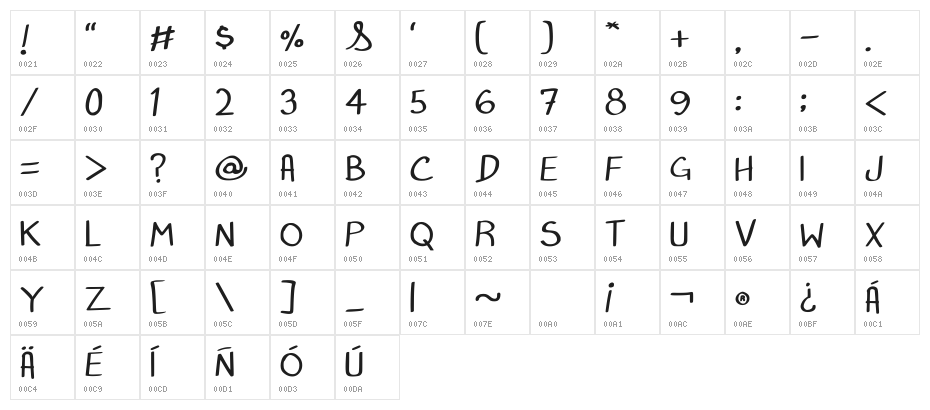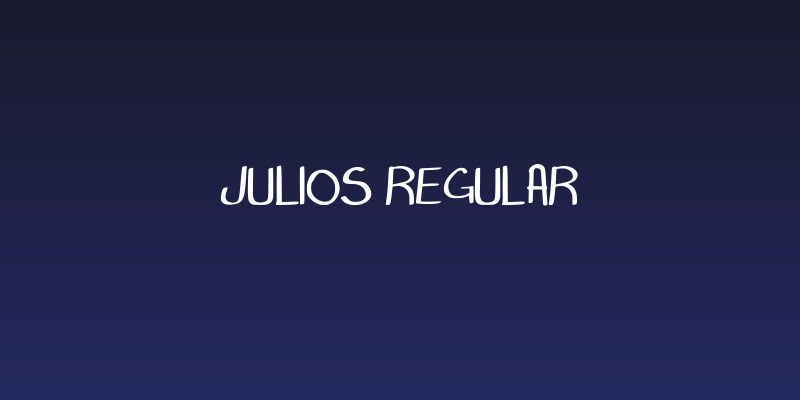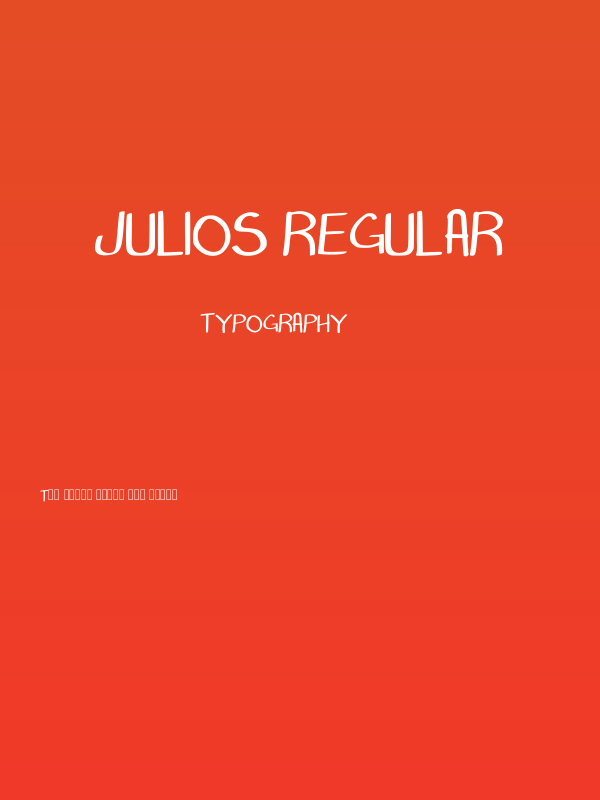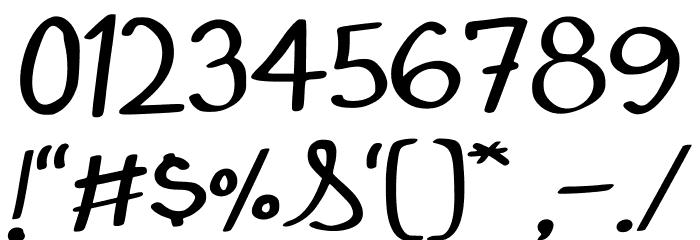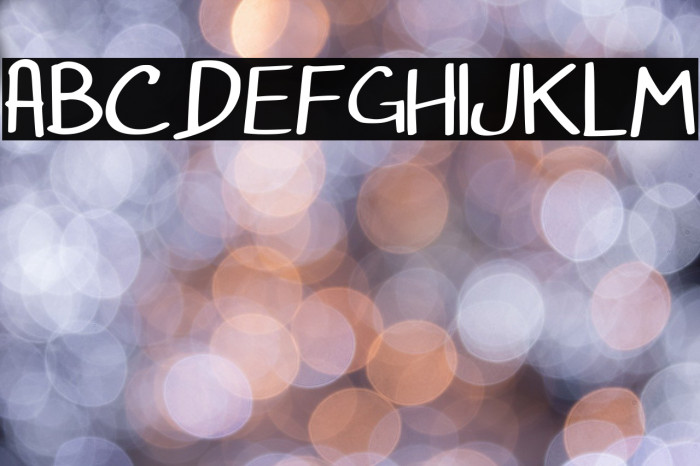
Julios Regular Font
Julios Regular Description
This font features a playful and casual handwritten style, characterized by its smooth, flowing lines and slightly irregular shapes. The letters have a natural, organic feel, with varying stroke widths that add to its informal charm. The uppercase letters are bold and prominent, while the lowercase letters maintain a consistent style, making it easy to read. The numerals and special characters are designed to match the overall aesthetic, ensuring a cohesive look across all text. This font is perfect for projects that require a personal touch, such as invitations, greeting cards, or creative branding.
| Proposed Projects | Ideal for invitations, greeting cards, creative branding, and personal projects. |